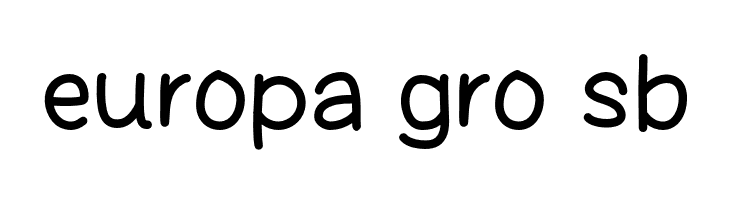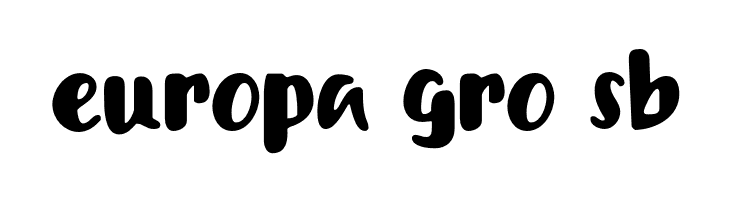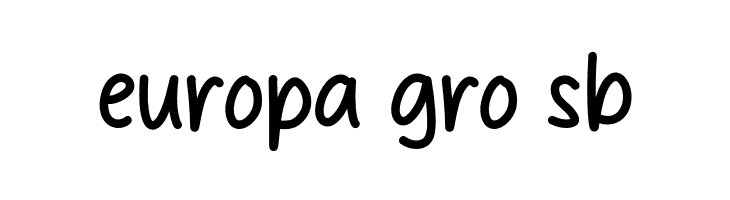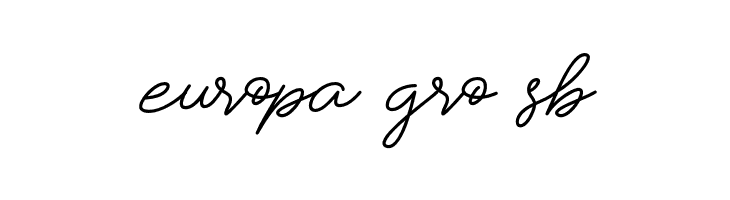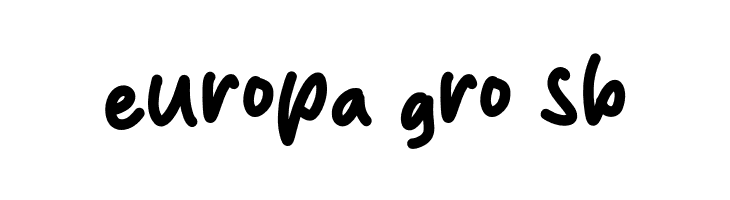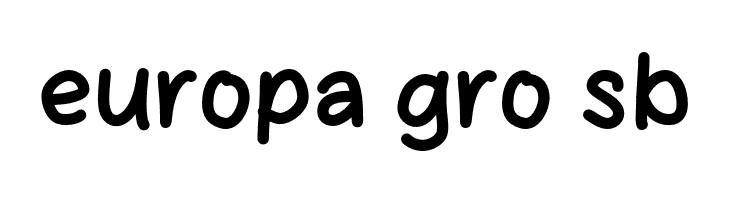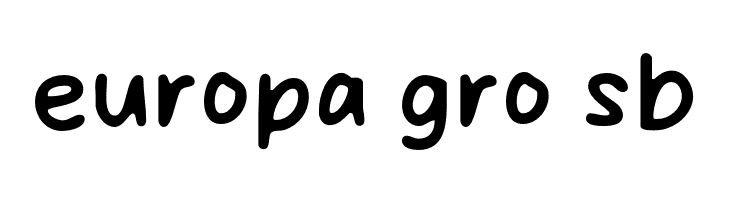
A casual, hand-drawn font with rounded, playful letterforms.
A bold, playful, and hand-drawn style font with rounded edges.
A playful handwritten font with smooth curves and a casual style.
A playful, handwritten font with rounded, informal characters.
A playful handwritten font with rounded, smooth strokes.
A graceful script font with fluid, cursive lines and a sophisticated style.
A playful, handwritten font with smooth, rounded edges and consistent strokes.
A playful, handwritten font with rounded, bold strokes and a casual style.
A playful, rounded font with a hand-drawn, informal style.